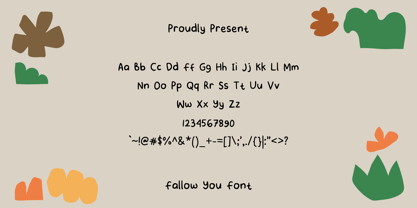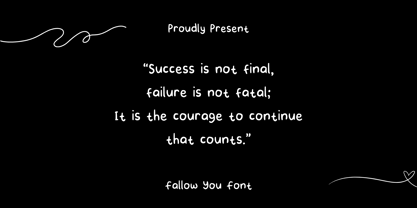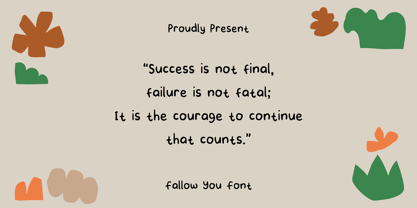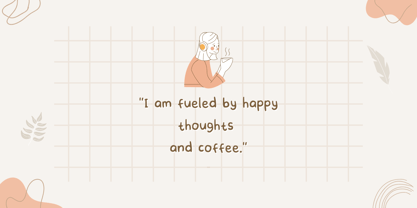
Fallow You
The Fallow You font is a neat and cute handwriting font, perfect for completing your greeting card. Add it to your creative projects and enjoy the results!